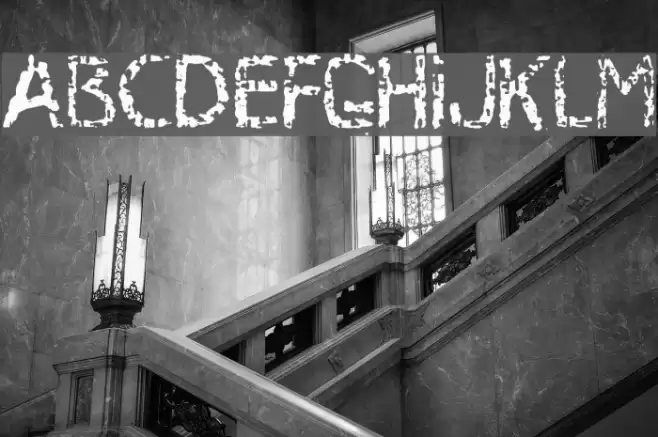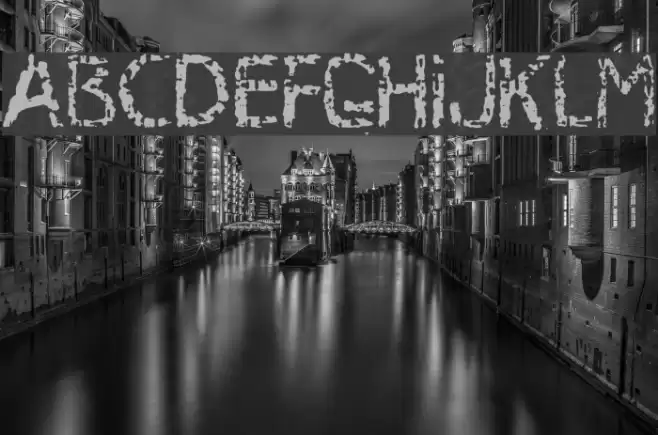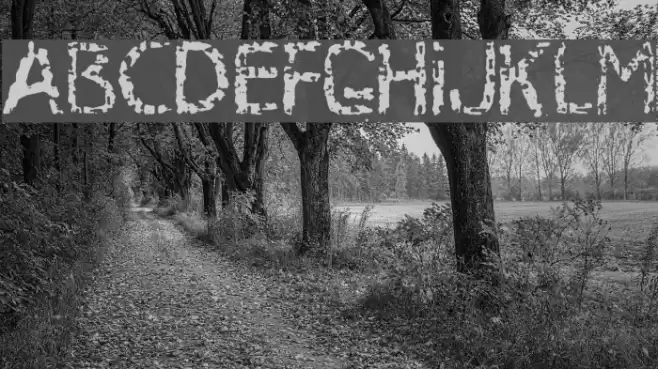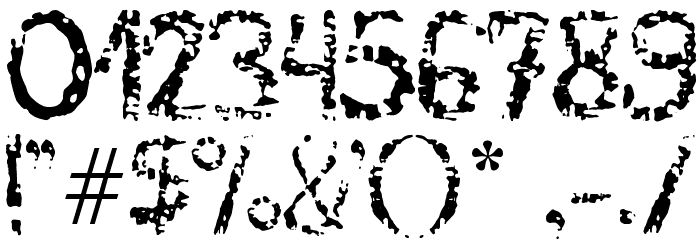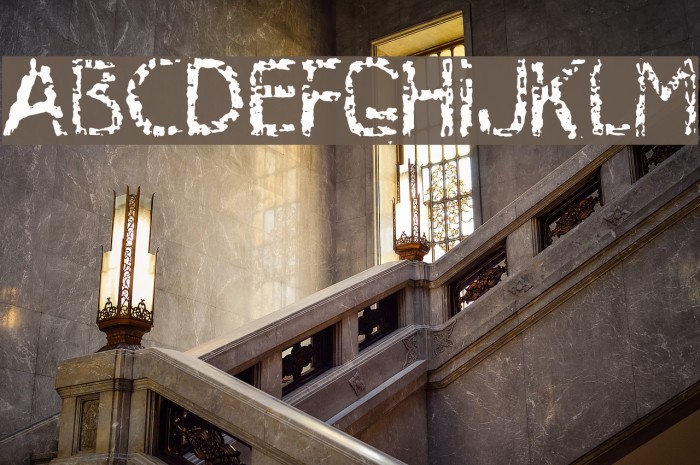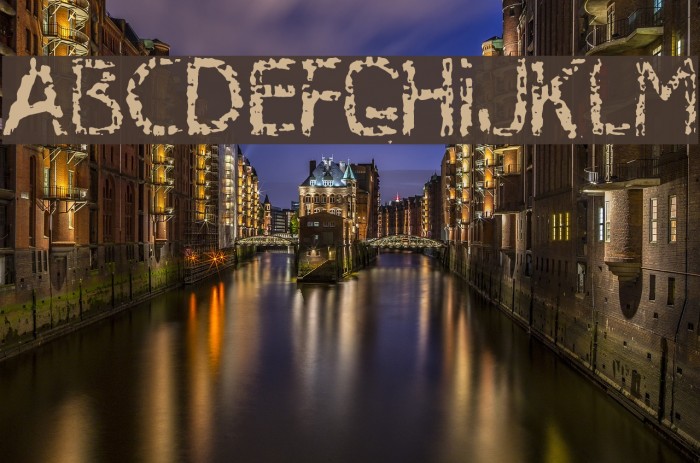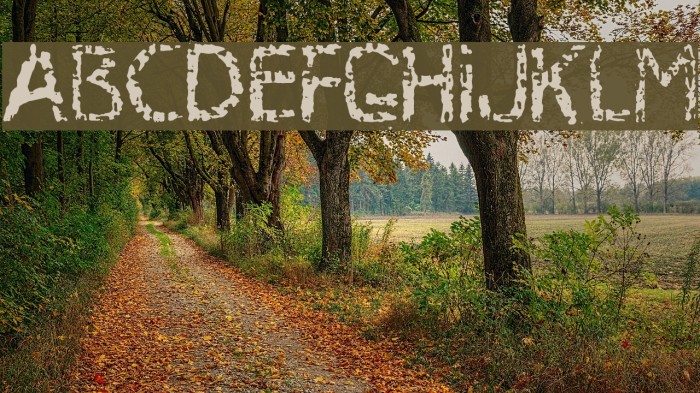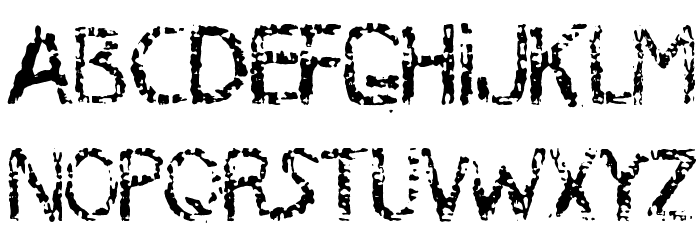
MB-RustyIron Font
MB-RustyIron Description
This font features a distressed, weathered appearance reminiscent of rusted metal surfaces. The characters are bold and have an irregular texture that gives them a rugged, industrial feel. The edges are rough and uneven, contributing to the font's gritty aesthetic. Despite its distressed look, the characters remain legible and distinct, making it suitable for designs that require a bold, impactful statement. The font's unique style is perfect for projects that aim to convey a sense of age, wear, or authenticity.
A bold, distressed font with a rugged, industrial appearance from Distorted Eroded fonts.
- Proposed Projects: Ideal for vintage posters, industrial-themed designs, branding for rustic products, or any project needing a bold, aged look.
- Overall Style: Vintage